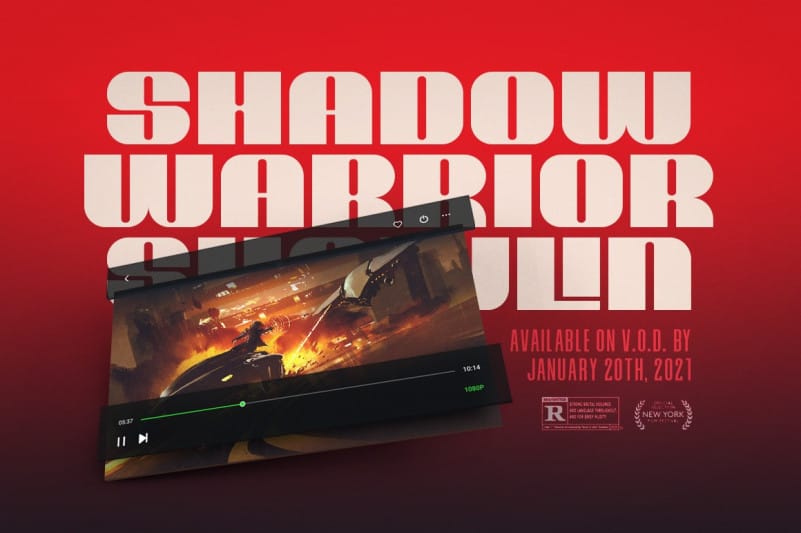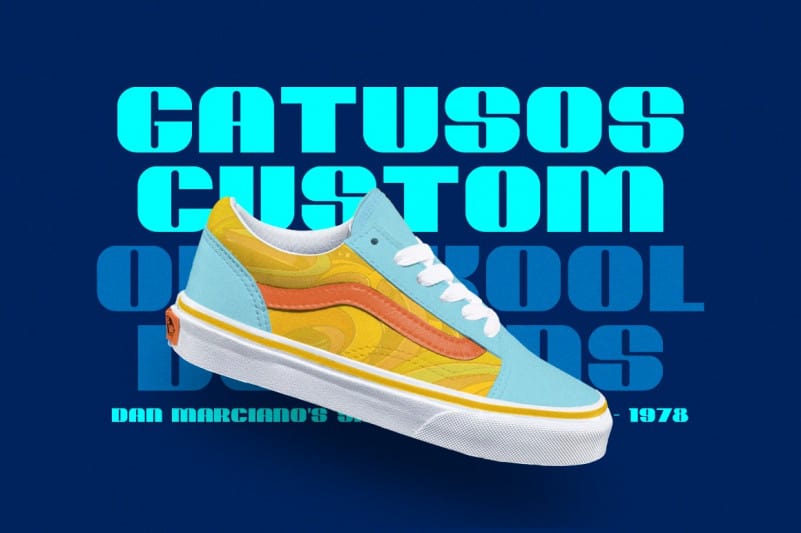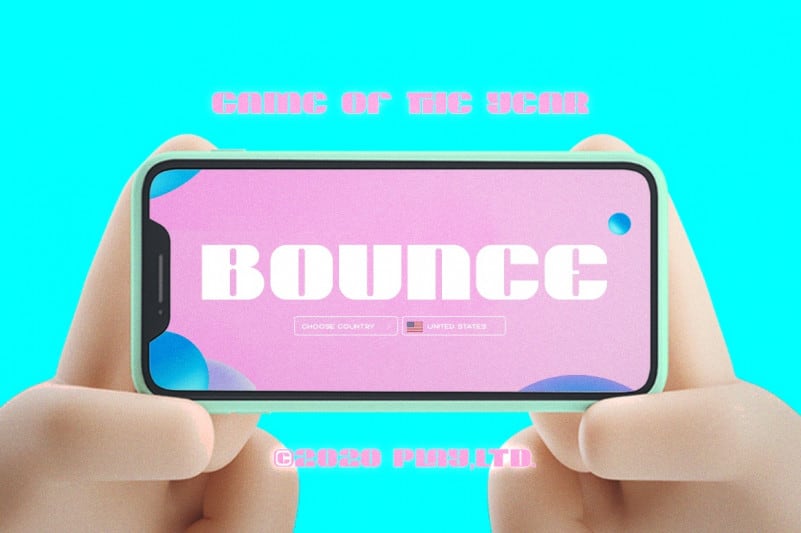
Play Heavy Display Font is a Display font that inspired by the street signs or shop signs, poster gig’s, albums cover artwork how have wide style. Made from font designer named Don Marciano. It’s a heavy display font created for brand development, it uses big round corners on the outside and in contrast uses small corners on the inside, the clean lines make it ideal for applications in multiple arrays of themes; includes standard and discretional ligatures for versatile usage.